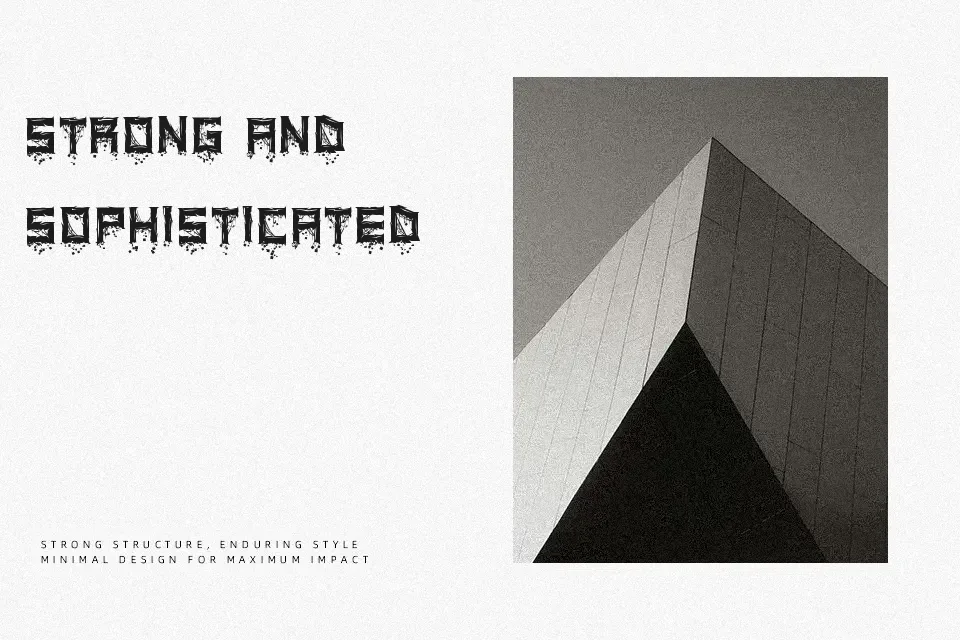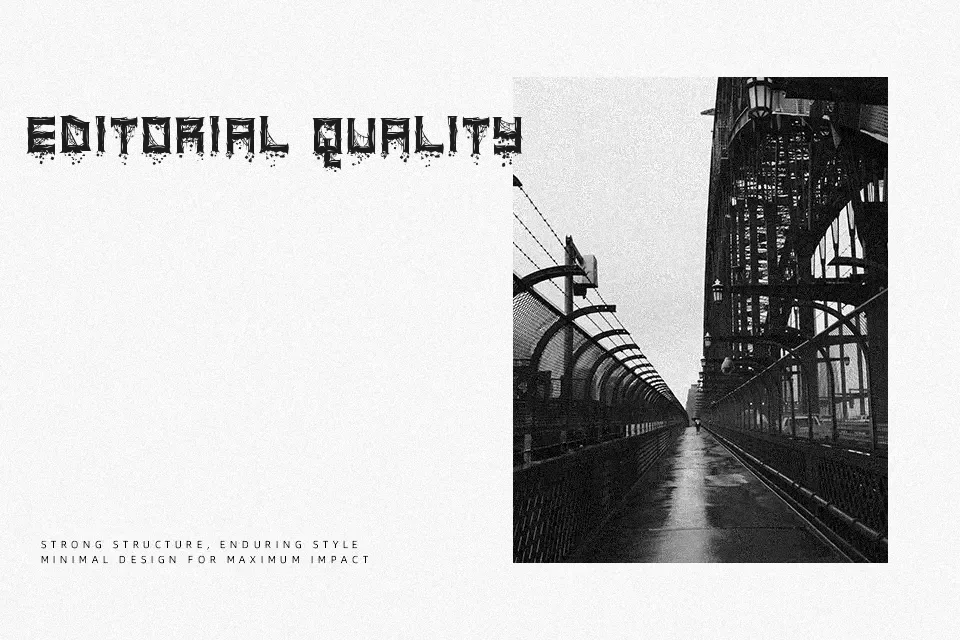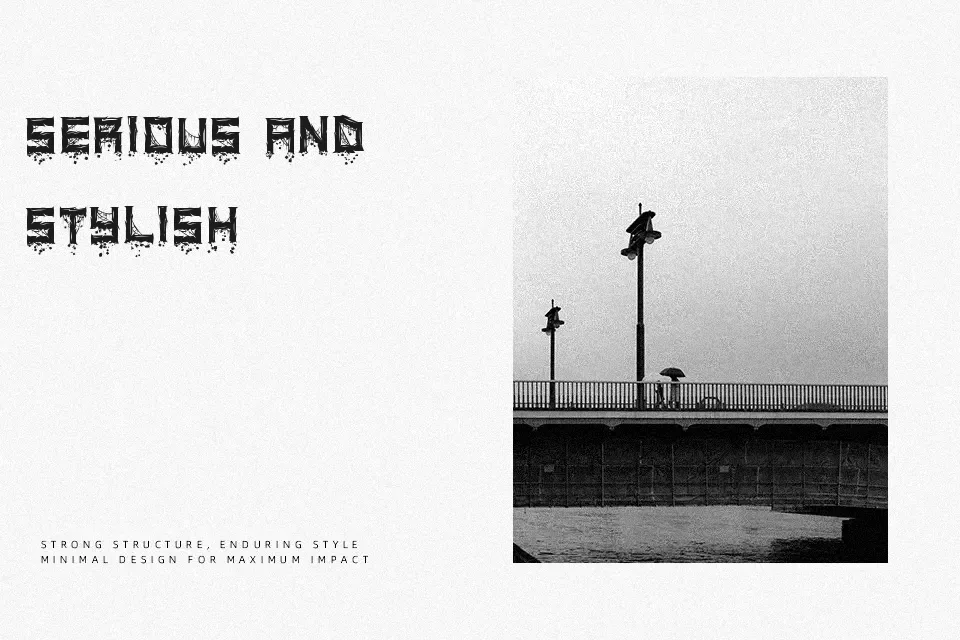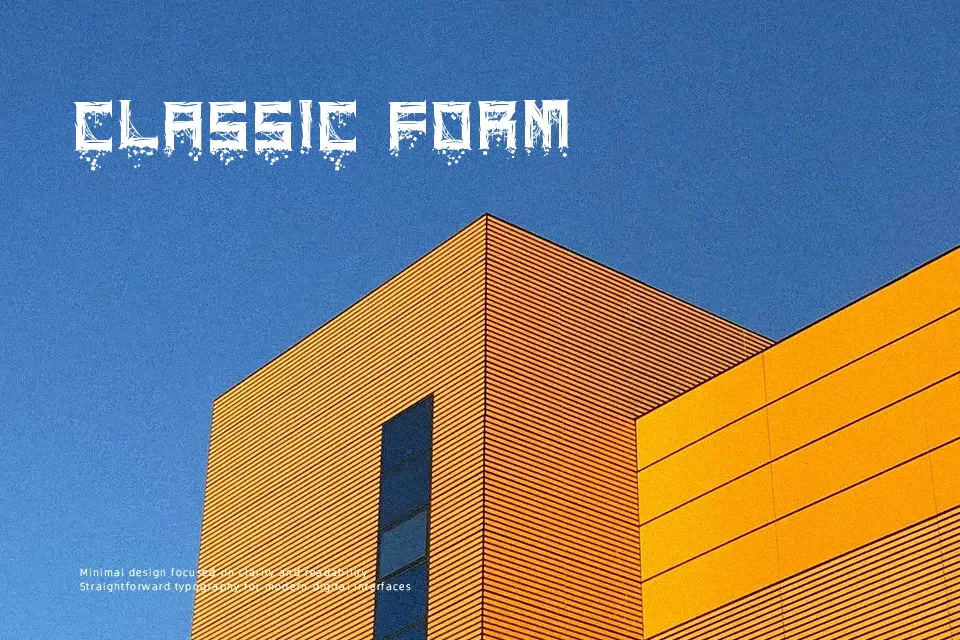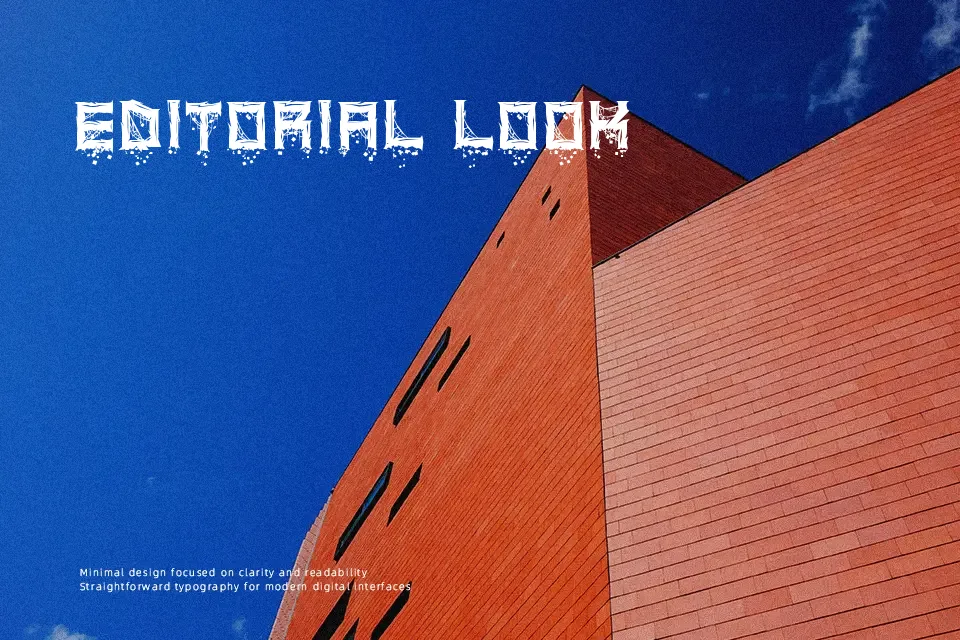
Catacombs Font
Catacombs Font is built upon an aggressive display structure marked by uneven, splintered strokes and jagged contours that simulate eroded stone. The letterforms feature thick vertical stems with rough internal breaks and irregular terminals, maintaining moderately compact character spacing to reinforce a dense, imposing rhythm. Medium proportions keep primary letter shapes recognizable at substantial scales, making the design particularly effective for cinematic title cards, spooky game branding, and heavy metal merchandise. However, the heavy decorative decay noticeably diminishes legibility when set below headline sizes, making the typeface impractical for continuous reading or intricate body passages.
– horror movie title cards
– heavy metal album covers
– dark fantasy game branding
– halloween event banners
– continuous body paragraphs
– mobile user interface labels
– formal corporate documentation
– dense spreadsheet typography
Perfect for film, gaming, and halloween, with a dark and decorative style.